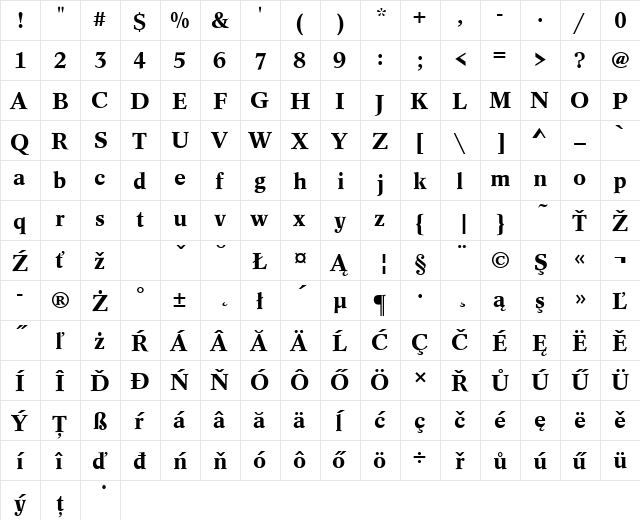
ContusTEEMed Regular
Design Context for ContusTEEMed Typeface
ContusTEEMed offers clean, dependable letterforms without strong stylistic allegiance, making it a practical choice for designers who need flexibility.